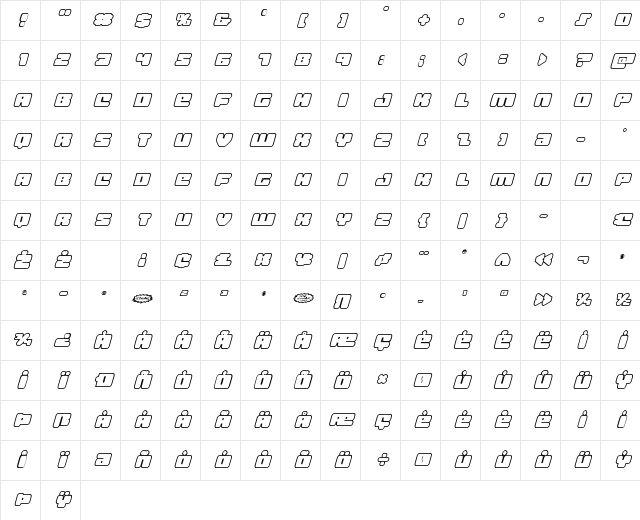
Hula Hoop Girl Bold Outline It Bold Outline Italic Free Font
Hula Hoop Girl Bold Outline It Bold Outline Italic
Style: Bold Outline Italic
Design Context for Hula Hoop Girl Bold Outline It
Hula Hoop Girl Bold Outline It is built around its visual character rather than neutral utility - its distinctive forms are designed to make an impression at display sizes. The slanted form adds forward momentum and visual energy. Its bold stroke weight gives it real presence on the page.